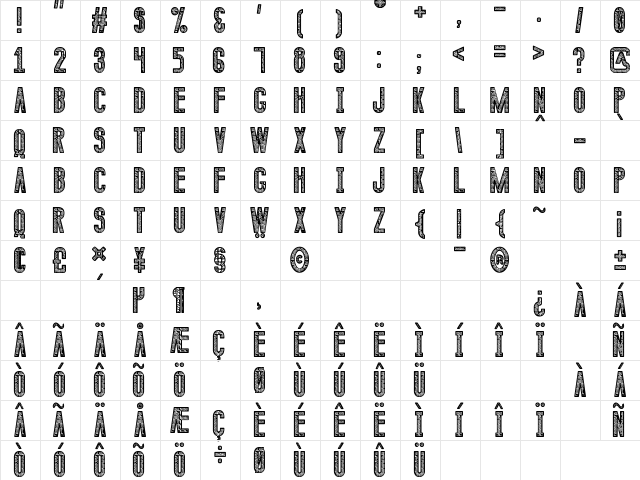
Calendulia St Regular
Design Context for Calendulia St Typeface
Calendulia St is a composed and adaptable typeface that performs quietly and consistently across a wide range of design contexts.